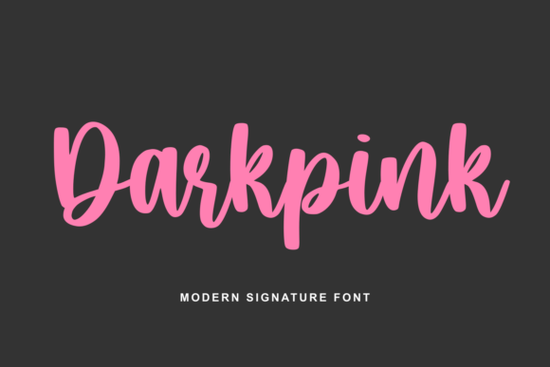
If you are looking for a script that feels both playful and elegant, the Darkpink Font is a wonderful choice for your next project. This modern calligraphy typeface blends a cute aesthetic with charming, bouncy curves that give every single letter a lively rhythm. Whether you are designing wedding invitations, crafting a new logo for a small business, or writing sweet love notes, this typeface brings a joyful personality to your words. It is soft, spirited, and fully PUA-encoded, meaning you can easily access all the swashes and alternate characters without needing special software.
How does the PUA encoding make designing easier?
One of the most practical features of this typeface is its Private Use Area encoding. For crafters and designers, this means you do not have to memorize complex keyboard shortcuts to access the beautiful swashes and alternate glyphs. You can simply open the character map or the glyphs panel in your favorite design software, like Canva, Illustrator, or Cricut Design Space, and click on the exact character you want. This saves a lot of time and keeps your creative workflow smooth, especially when you are working on detailed projects like custom mugs or intricate vinyl decals.
What kinds of projects work best with a bouncy script?
Because of its gentle flow and playful wink, this lettering is incredibly versatile. It works beautifully for branding that wants to appear approachable and friendly. If you are creating materials for a bakery, a boutique, or a children's brand, the soft curves add a welcoming touch. When pairing fonts for your layouts, you might want to use the thicker Maddison option for bold headers, or mix it with the Halloween-themed bachelorette style for seasonal events. If you prefer a cleaner look for secondary elements, the cleaner preppy script is a great companion. For sweet treat packaging, the sweet cupcake lettering pairs perfectly with these bouncy vibes, while the luxurious Veloura flow adds a high-end feel to formal invitations.
Is this typeface easy to read on digital and printed materials?
Readability is always a top priority when choosing a script. While highly decorative fonts can sometimes be hard to decipher, this design strikes a great balance. The bouncy curves are distinct enough to be legible at medium to large sizes. It is perfect for short phrases, monograms, and headlines. If you are a print-on-demand seller creating t-shirts or tote bags, keeping the text to a few words ensures your customers can read the message from a distance. For longer paragraphs, it is always best to pair it with a clean sans-serif to maintain clarity. If you want to explore more options from this creator, you can browse the full collection of Darkpink resources directly on the marketplace.